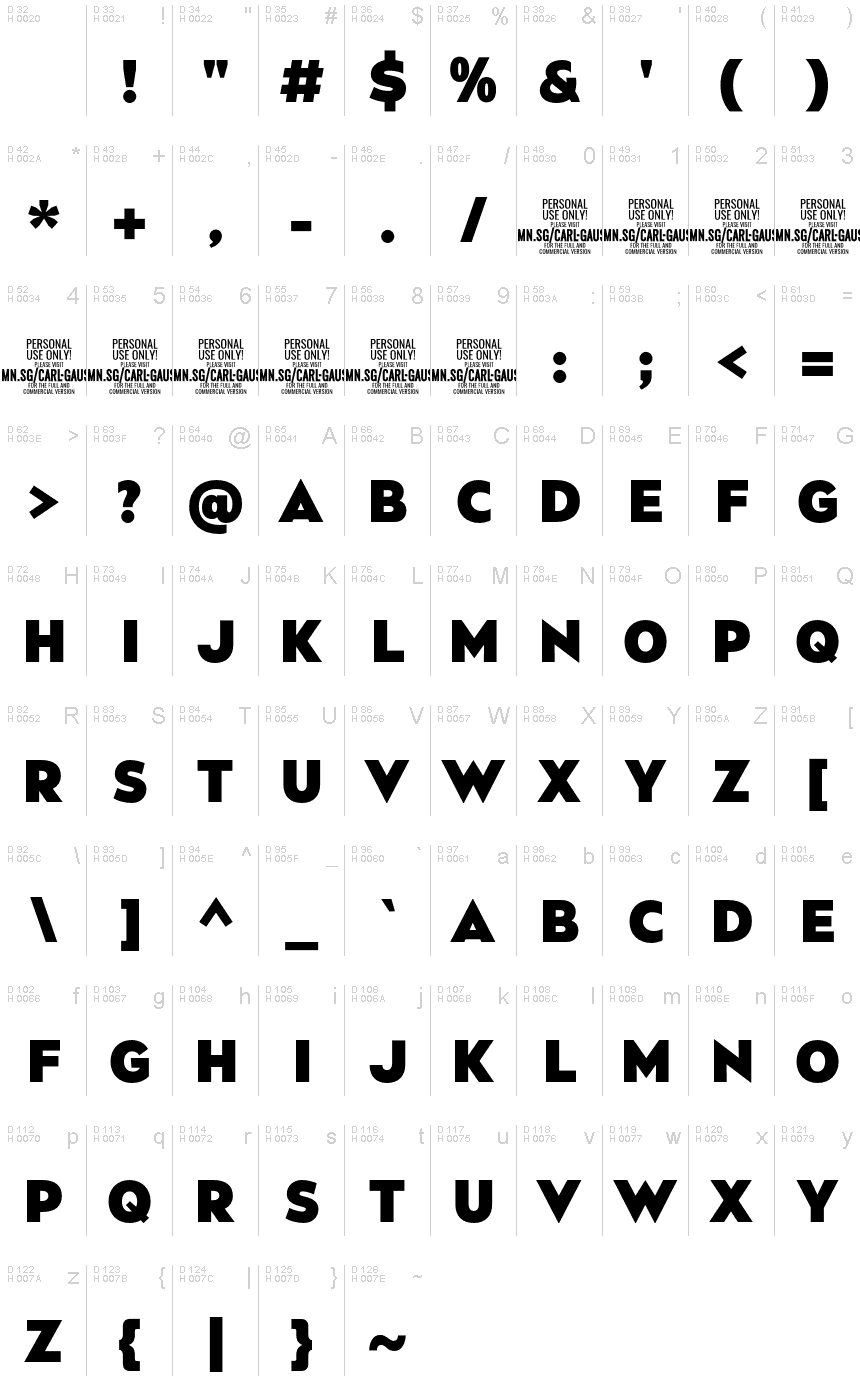
Carl Gauss PERSONAL USE ONLY Regular
Carl Gauss is the ultimate font for modern design projects. This stunning sans serif typeface, designed by Mans Greback, boasts an extra-bold weight and semi-expanded width that exudes confidence and power. Perfect for branding, editorial design, packaging, or any project that requires a strong visual impact. With its clean lines and legibility, Carl Gauss is ideal for headlines and logos that need to make a statement. Its versatility allows you to use this font in a wide range of designs while maintaining its distinctive look. Let Carl Gauss elevate your next project with its bold presence and striking style.